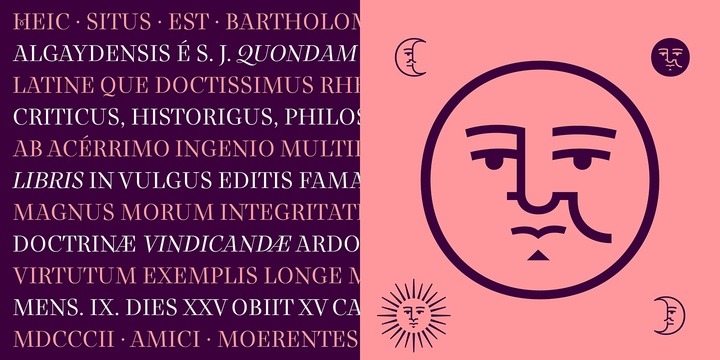
RNS Atlante Regular+Italic Font
RNS Atlante Italic Font is perfect for dynamic fashion magazines, elegant editorial layouts, sophisticated beauty campaigns, modern luxury branding, refined hospitality signage, progressive corporate communications, stylish web design, contemporary art gallery materials, upscale lifestyle publications, and graceful cultural institution branding.
RNS Atlante Italic Font is exciting because it masterfully captures the fluid grace and sophisticated movement of contemporary italic typography, creating a typeface that embodies elegance in motion, refined sophistication, and the dynamic energy that defines modern luxury communication. This font brings flowing sophistication and editorial excellence to any project, making it ideal for brands that want to convey movement, elegance, and the sophisticated dynamism that characterizes premium contemporary design. Its italic character and flowing appeal create an atmosphere of graceful sophistication that resonates with discerning audiences who appreciate refined movement and elegant expression.
RNS Atlante Italic Font family includes thin, light, regular, medium, bold, and black weights, each featuring authentic italic styling with elegant character sets and sophisticated ornaments, providing designers with comprehensive tools for creating dynamic typography and gracefully sophisticated brand experiences.
This distinguished italic typeface combines classical italic traditions with contemporary design functionality, making RNS Atlante Italic Font Free Download a premium choice for projects celebrating elegant movement and sophisticated flow. The font's gracefully crafted letterforms feature flowing proportions and italic styling that reflect the artistic heritage and dynamic beauty of traditional italic calligraphy and contemporary editorial design.
Whether you're designing luxury fashion campaigns, sophisticated editorial publications, or elegant hospitality materials, RNS Atlante Italic Font delivers unmatched italic authenticity and sophisticated appeal. The font excels in both intimate luxury applications and large-scale editorial environments where flowing elegance and sophisticated movement create memorable refined experiences.
Editorial professionals choose RNS Atlante Italic Font for its ability to instantly communicate sophisticated movement and editorial elegance while creating emotional connections with audiences seeking refined luxury and sophisticated cultural experiences. The font's flowing character makes it particularly effective for fashion magazines, luxury brands, and sophisticated cultural institutions.
Each character reflects the flowing artistry of italic typography, featuring graceful construction and sophisticated proportions that create typography as elegant and dynamic as silk flowing in the wind, graceful dance, and the most sophisticated expressions of movement and italic elegance.